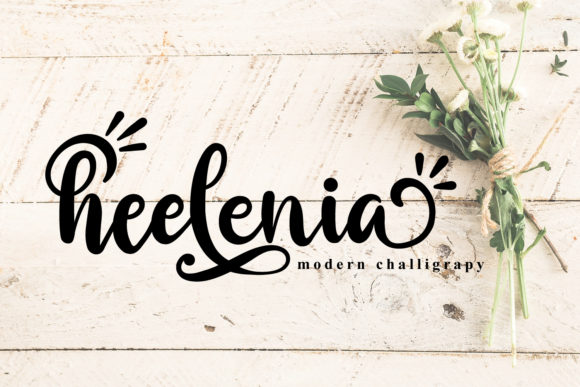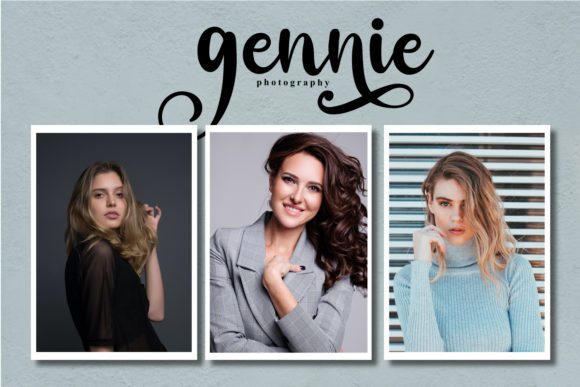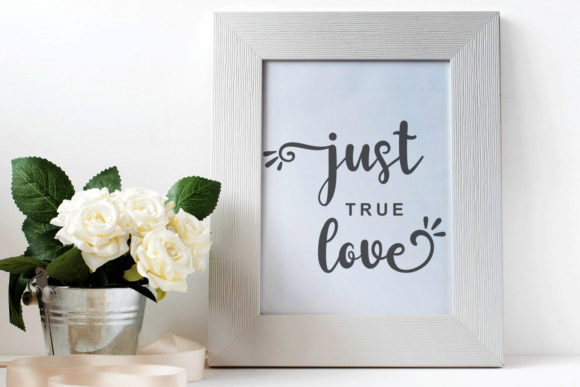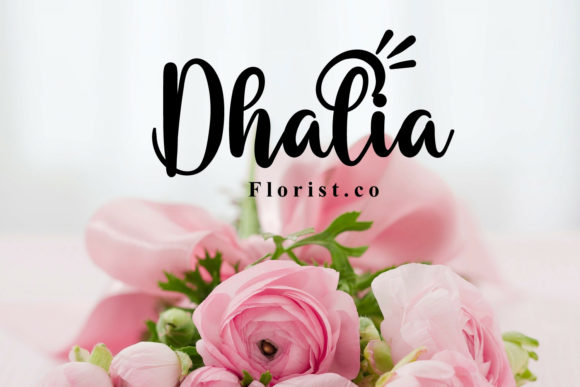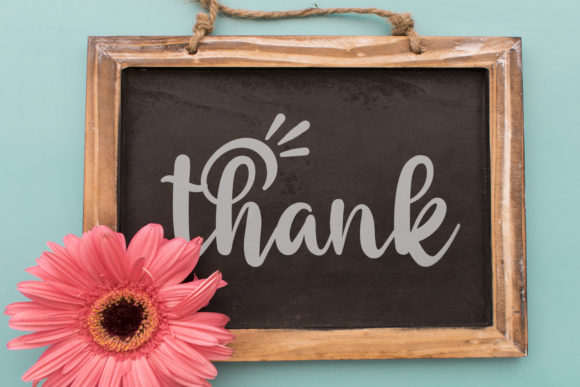
Heelenia Font
Introducing “Heelenia,” a font that feels equally charming and elegant, radiating sophistication and allure. Its stunning beauty makes it a perfect choice for a wide variety of design projects, adding a touch of handcrafted charm to every creation. Prepare to be captivated by its flowing and well-balanced characters, and watch as it enhances your designs, making them truly stunning for occasions such as wedding invitations, thank you cards, quotes, greeting cards, logos, business cards, and any other design that requires a touch of elegance and handwritten flair.
With “Heelenia,” you have a font that exudes charm and elegance in equal measure. Its flowing lines and varying baseline create a sense of grace and movement, adding an air of magic to your designs. Whether you’re working on wedding invitations or creating branded materials, this font will leave a lasting impression of sophistication.
The versatility of “Heelenia” allows it to seamlessly complement various design styles and themes. From classic and timeless to contemporary and chic, this font adapts effortlessly to your creative vision, making it a reliable choice for all your projects.
Unleash your creativity and access all of the glyphs and swashes with ease, thanks to “Heelenia’s” PUA encoding. Whether you’re crafting heartfelt quotes, designing elegant logos, or creating personalized stationery, this font will bring a sense of beauty and authenticity that captivates your audience.
So, immerse yourself in the charm and elegance of “Heelenia” and let it become your creative ally. Allow its flowing and sophisticated style to inspire your designs, turning them into stunning works of art. Whether you’re a seasoned designer or a passionate enthusiast, “Heelenia” empowers you to create visuals that stand out and make a statement. Let “Heelenia” be the key to unlocking the charm and elegance in your designs, and watch as it takes your projects to new heights of refinement and excellence!